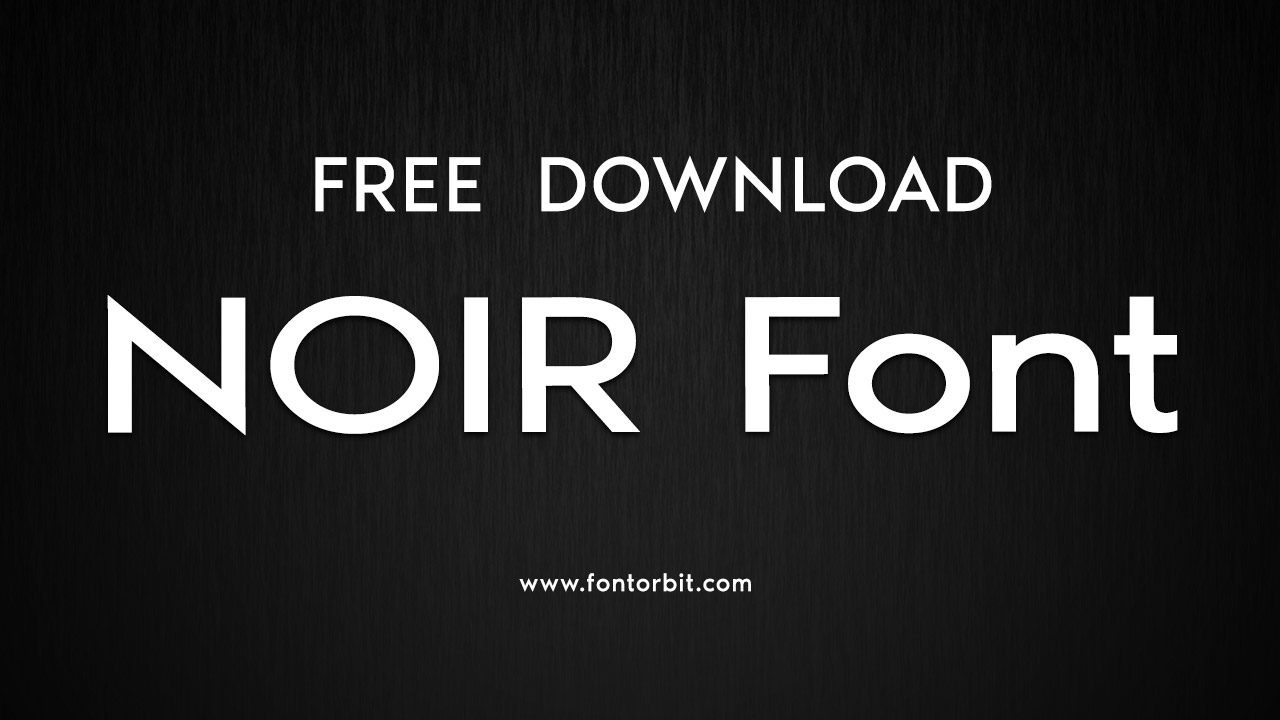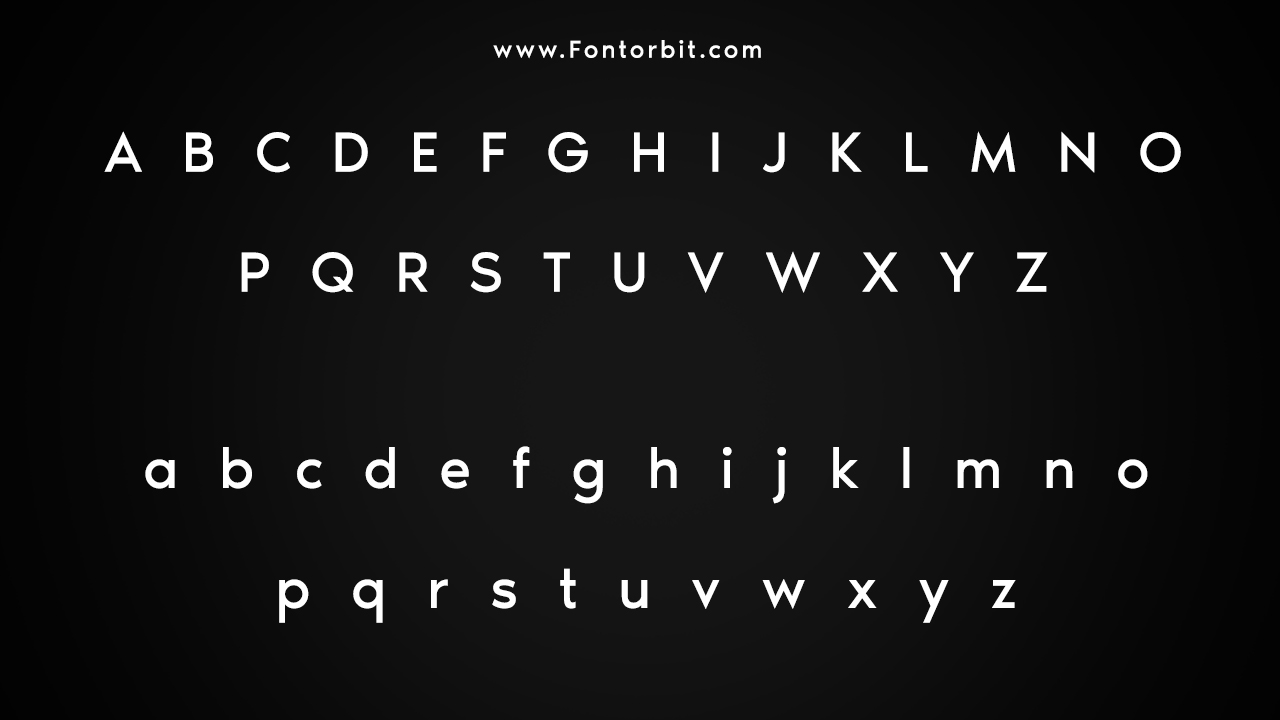
The NOIR Font, designed by Matthias Guggisberg, brings a sophisticated Art Deco-inspired look to modern typography. As a sans serif typeface family, NOIR captures the essence of early 20th-century geometric design while adding a touch of warmth and elegance. This font is versatile for free personal use, making it suitable for various high-visibility design projects.
The NOIR Font Family
The NOIR Font family features a geometric design reminiscent of Art Deco style, characterized by its clean lines and balanced proportions.
It offers a range of weights from light and elegant to heavy and bold, suitable for both small text and large display sizes. The font’s organic look, despite its geometric roots, provides a unique blend of boldness and sophistication.
The NOIR Font is perfect for any design that requires a bold yet elegant touch. Its various style sets allow for versatile applications, whether for branding, eye-catching headlines, or decorative captions.
The NOIR Font, available for free personal use, embodies the elegance and precision of Art Deco design. It provides a sophisticated, high-impact look for branding, headlines, and stylish text overlays. The font supports extended Latin, Cyrillic, and Greek characters, making it a versatile choice for achieving a professional finish in various design projects.
The NOIR Font is a free sans serif typeface designed by Matthias Guggisberg, inspired by Art Deco geometric styles. It’s ideal for both small and large text applications.
NOIR features a geometric design with various weights, offering an elegant yet bold appearance suitable for diverse design needs.
Use the NOIR Font to create sophisticated branding elements, striking headlines, and stylish captions that reflect an Art Deco influence.
The NOIR Font supports extended Latin, Cyrillic, and Greek character sets, ensuring broad language coverage for professional use.